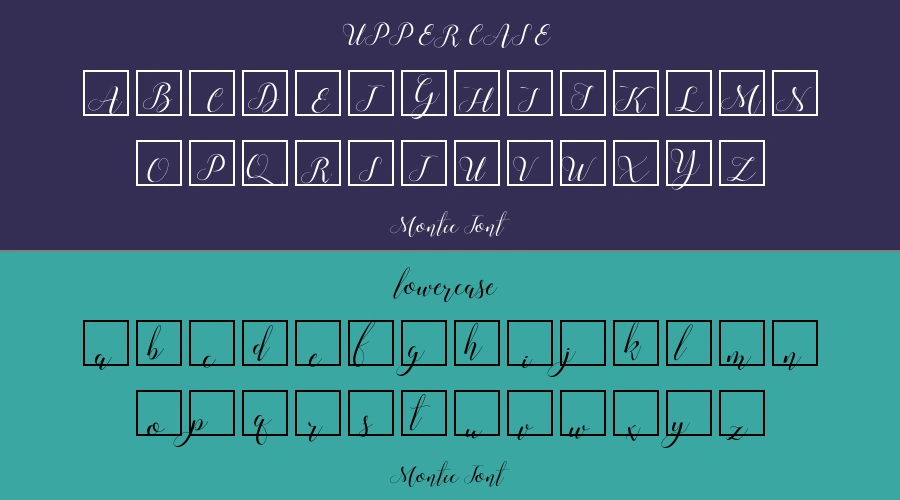
About Montic Font
Montic Font stands out for its distinctive combination of hand-drawn quality and aesthetic balance. Ideal for financial statements, it provides the clarity and technical excellence that professional projects demand. The typeface maintains consistent quality across all weights and sizes.
Key features include refined flared stems and practical discretionary ligatures, enhancing typographic expression. In instruction steps applications, Montic Font demonstrates exceptional format conversion. The terminal style and design heritage contribute to its distinctive character and professional appeal.